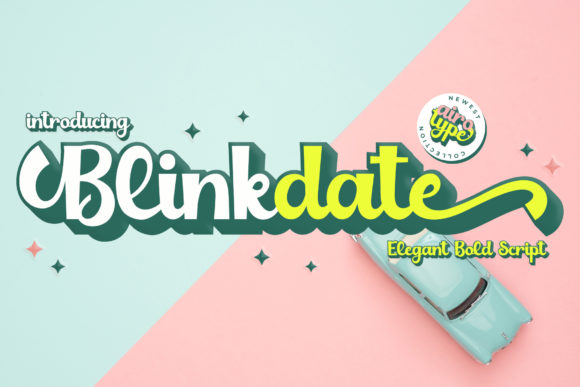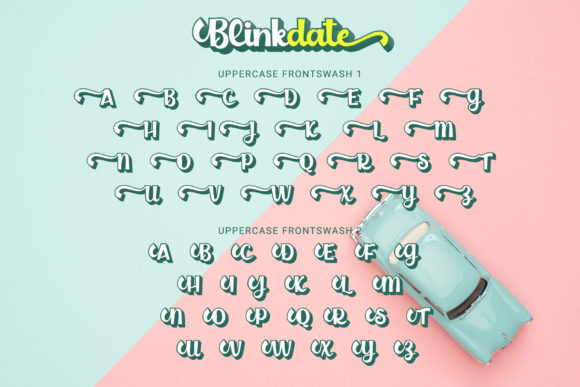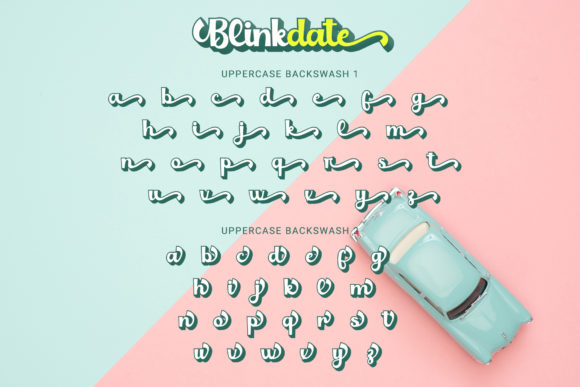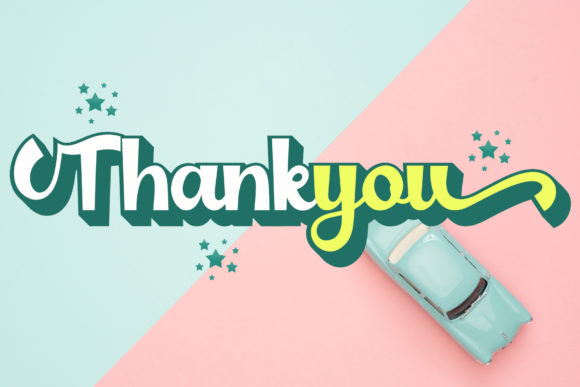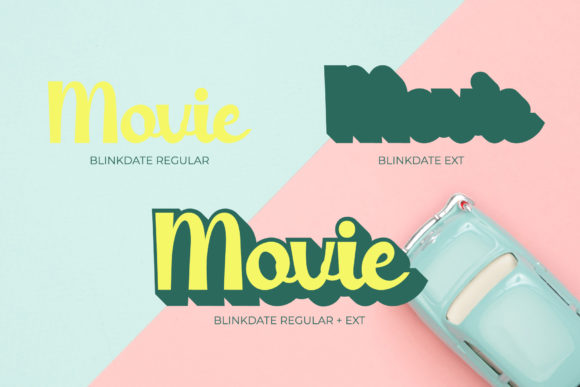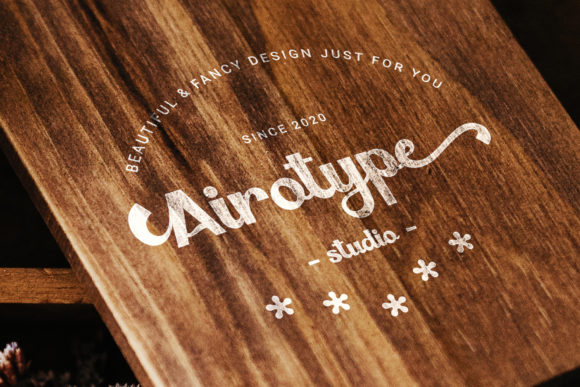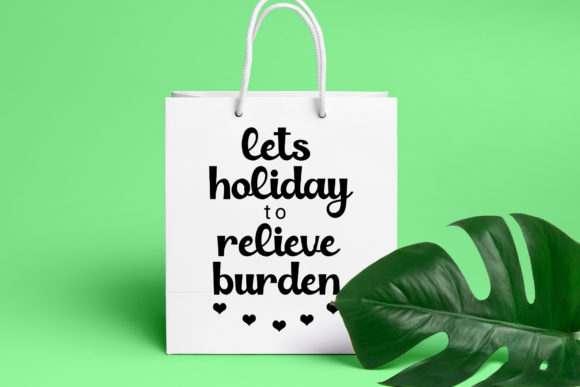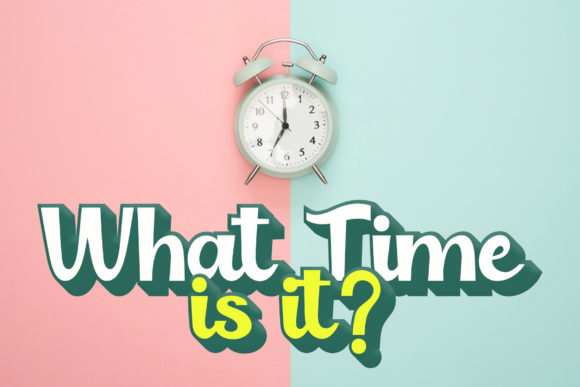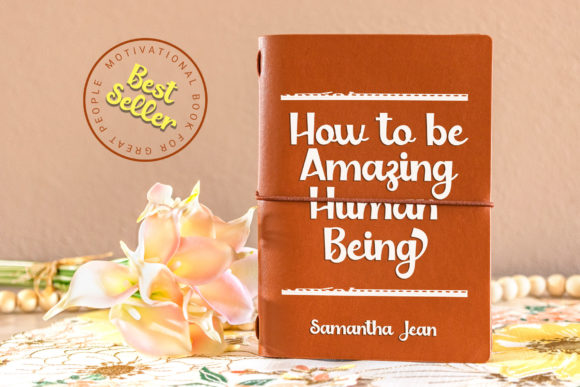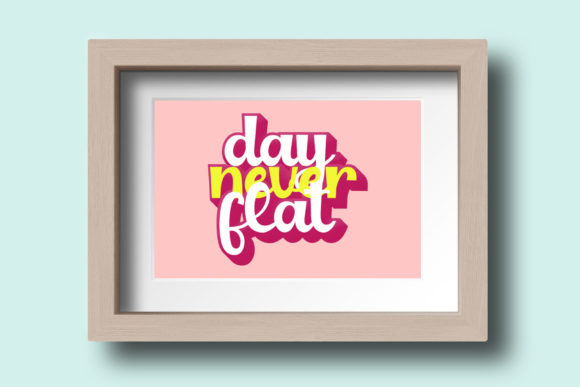
Blinkdate Font
About Blinkdate Font
Blinkdate is an elegant and bold handwritten font that combines trendiness with sophistication. With its stylish and eye-catching appearance, this font is sure to make your designs stand out. Whether you’re working on branding, advertisements, social media graphics, or any other creative project, Blinkdate offers a versatile style that can elevate your designs to new heights.
One of the notable features of Blinkdate is its PUA encoding, which allows easy access to all the glyphs and swashes. This means you can easily customize and add decorative elements to your designs, giving them a unique and personalized touch. The wide range of glyphs and swashes available in Blinkdate offers you endless possibilities to create spectacular designs that match your creative vision.
The bold and elegant nature of Blinkdate makes it suitable for various design applications. It can be used in logos and branding materials to convey a sense of confidence and modernity. Its trendy appearance also makes it ideal for fashion-related designs, invitations, headers, and any project that requires a touch of sophistication.
When using Blinkdate, consider its clean and legible letterforms that maintain a sense of elegance. Its bold strokes and well-defined curves create a visually appealing balance. Experiment with different sizes and pair it with complementary fonts to achieve the desired effect for your designs.
In conclusion, Blinkdate is an elegant and bold handwritten font that offers a perfect balance of trendiness and sophistication. Its PUA encoding allows easy access to all the glyphs and swashes, giving you the freedom to create spectacular designs. Fall in love with the versatility of Blinkdate and let it inspire you to create stunning and memorable designs that leave a lasting impression.